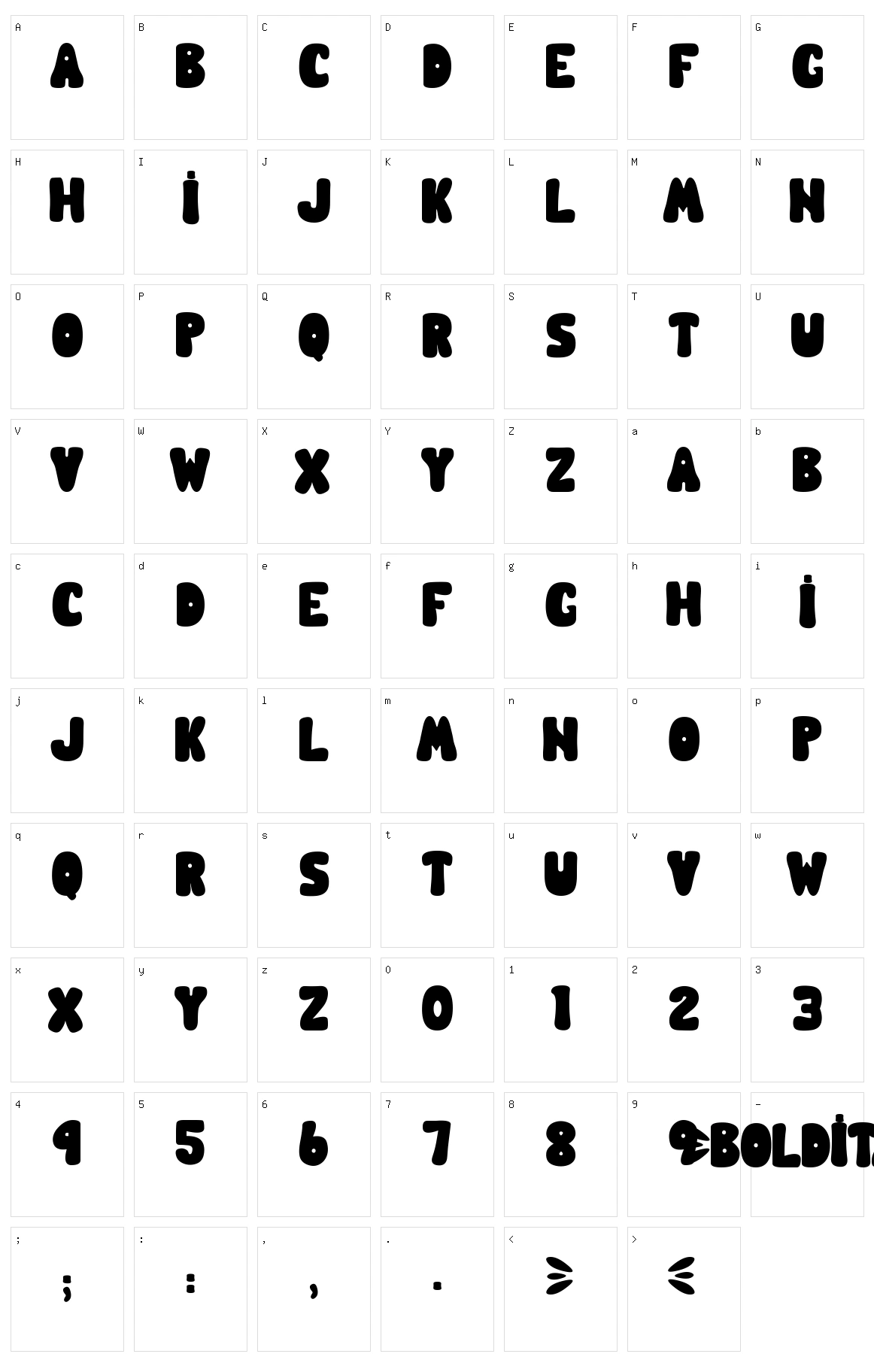
The free font Boldita is carefully designed by Jaime Rangel Castro, showcasing a thoughtful balance of creativity and usability and falls under the Groovy font style. When you download the ZIP file, it contains only 6.46 KB of font files, making it lightweight and quick to download. Please review the license details below to understand permitted usage and distribution rights. If license information is not available, we recommend using this font for personal projects only or contacting the author directly for commercial usage permissions.
This font is partial.